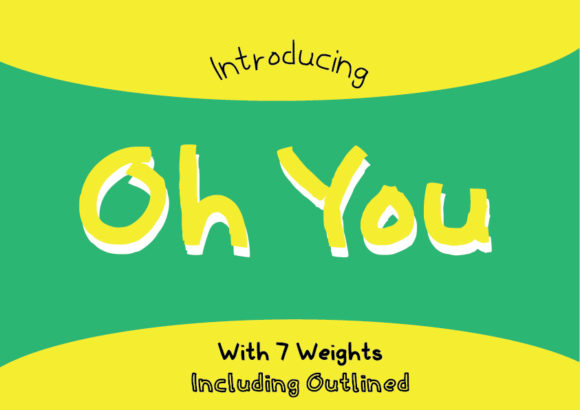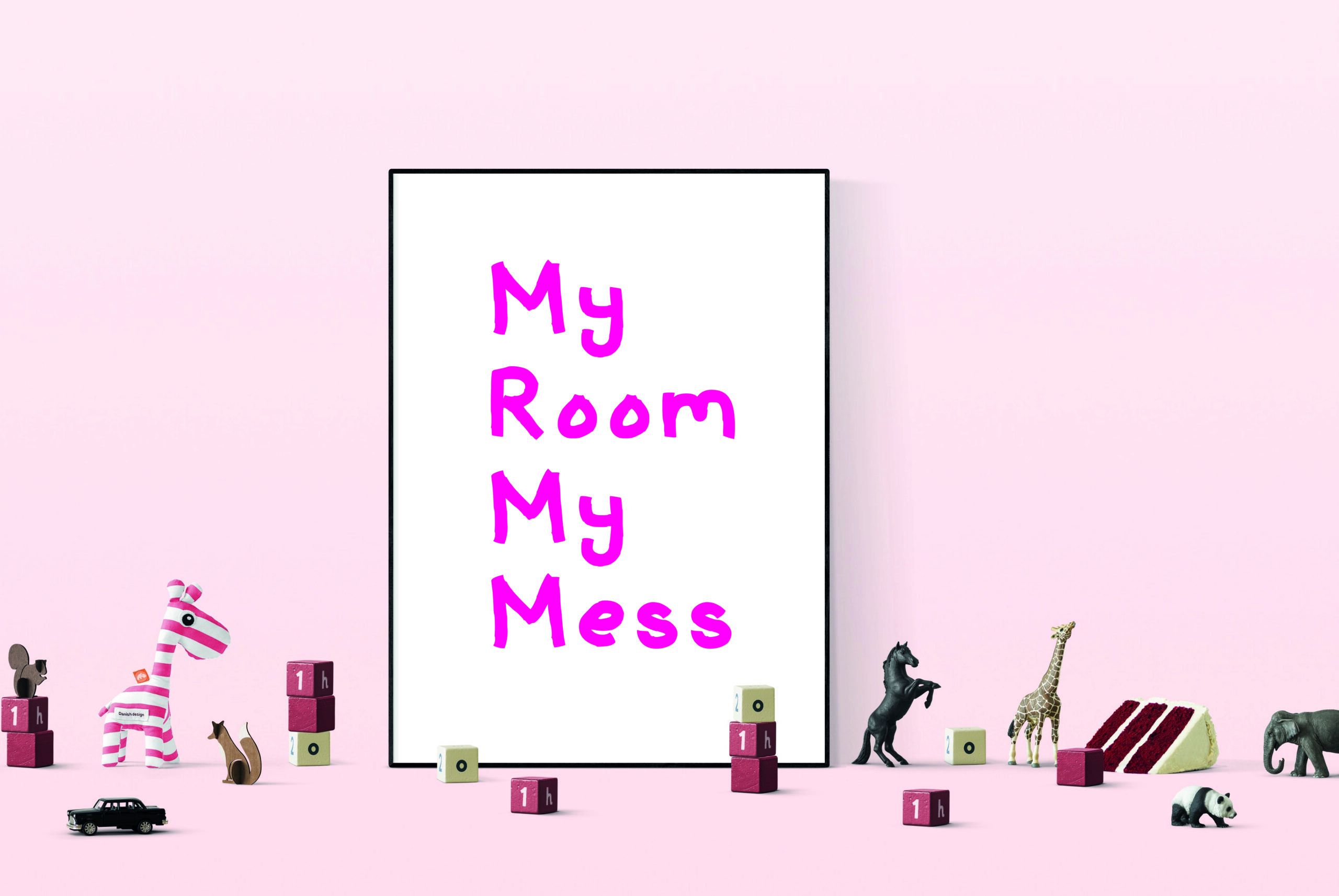
About Oh You Family Font
Oh You is a casual hand made font using a big fat marker. It’s cheeky in nature and its relaxed feel with a little wood cut texture will give headlines and sentences a sense of structure. It’s what you need in your life; think of this font as a good friend, or that warm cup of coffee to give you that lift! This font has sense of warmth, and coziness. Go on and give it a go. In fact, give it a good old hug!”